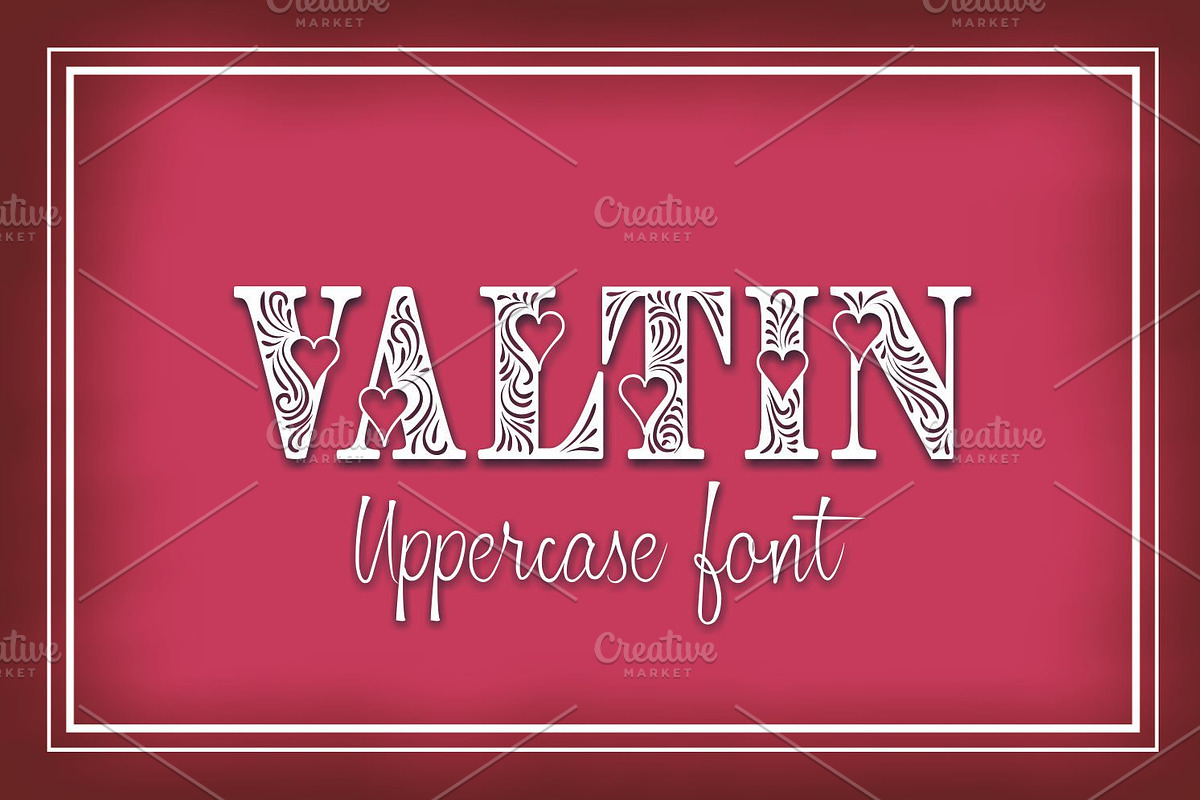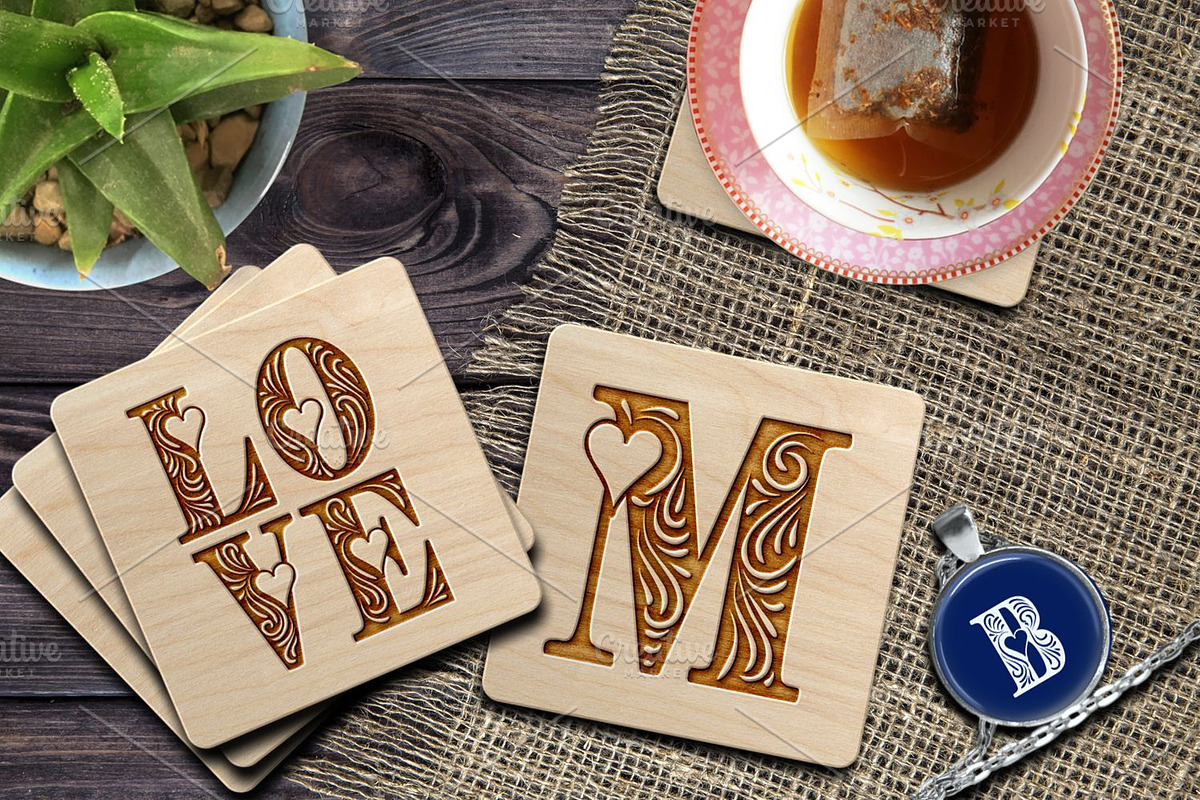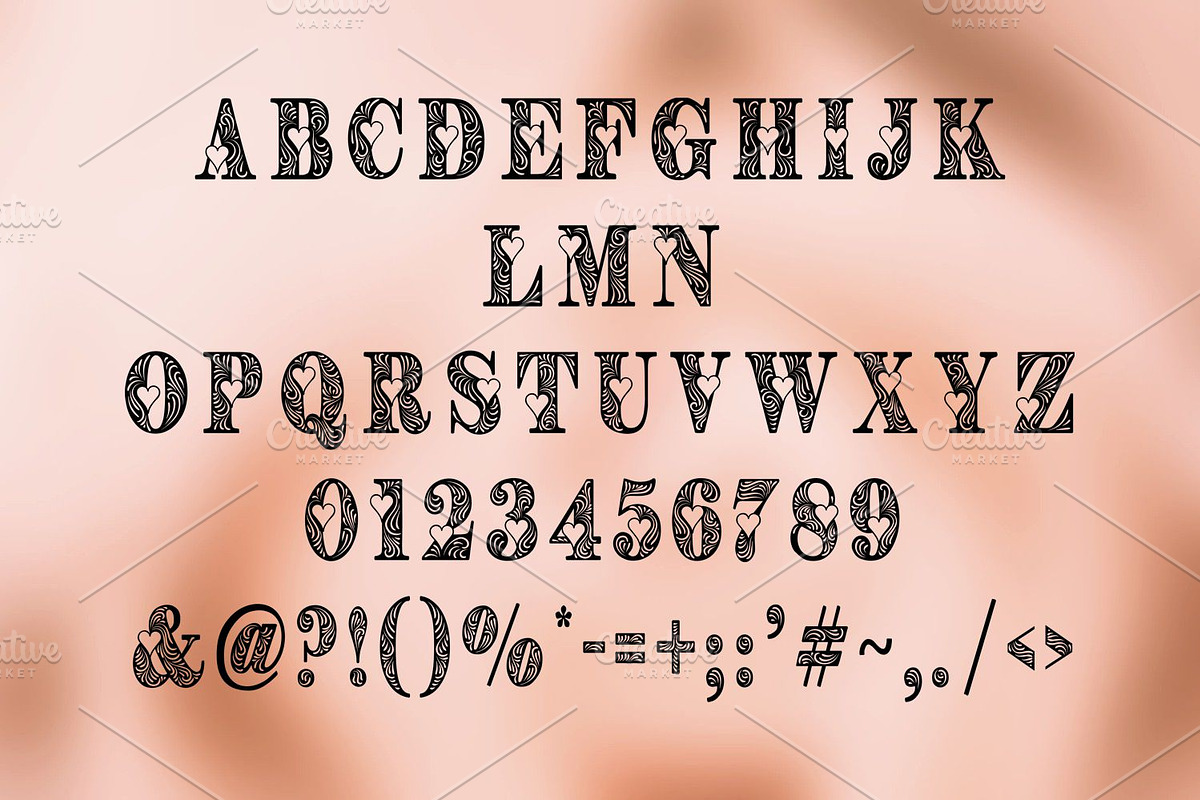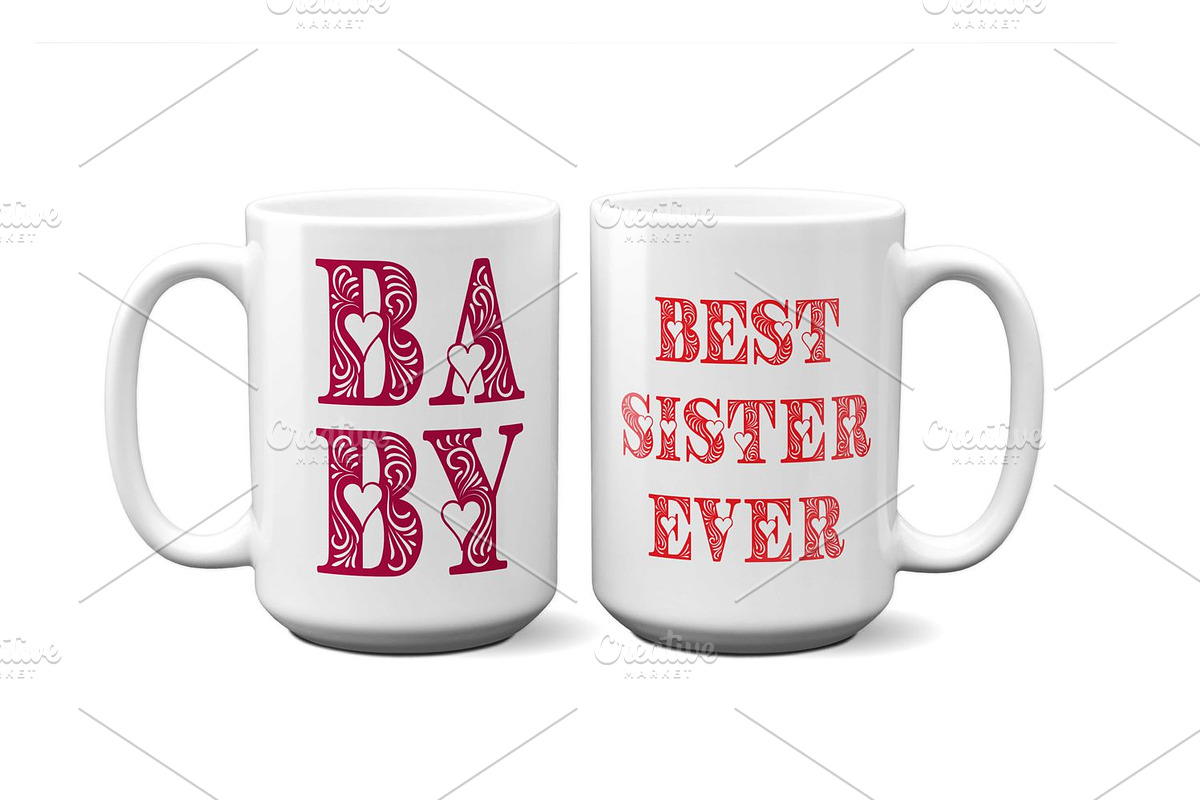
Valtin
Valtin is a carefully crafted hearts decorated uppercase font.
Valtin by Digital Typeface Studio fits naturally into Branding, posters, packaging, typography.